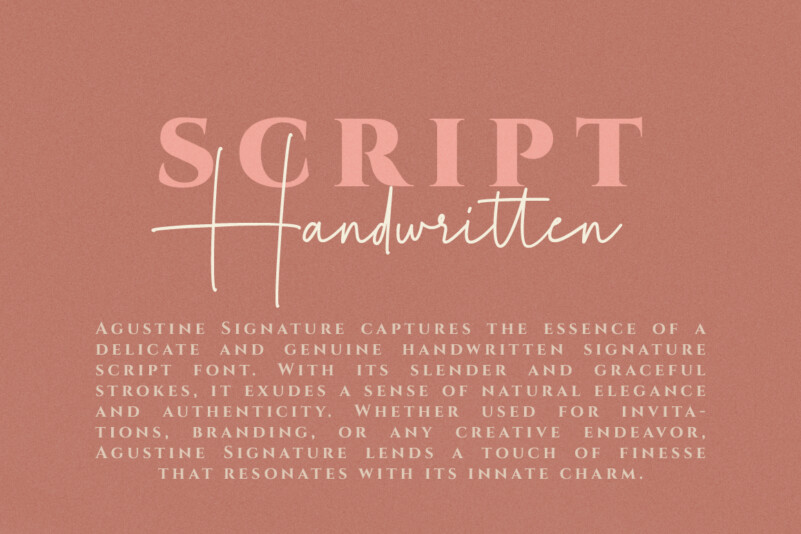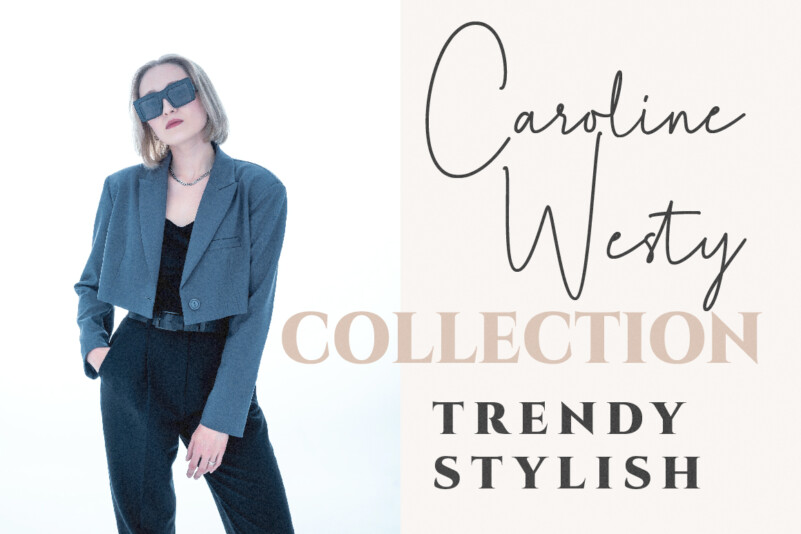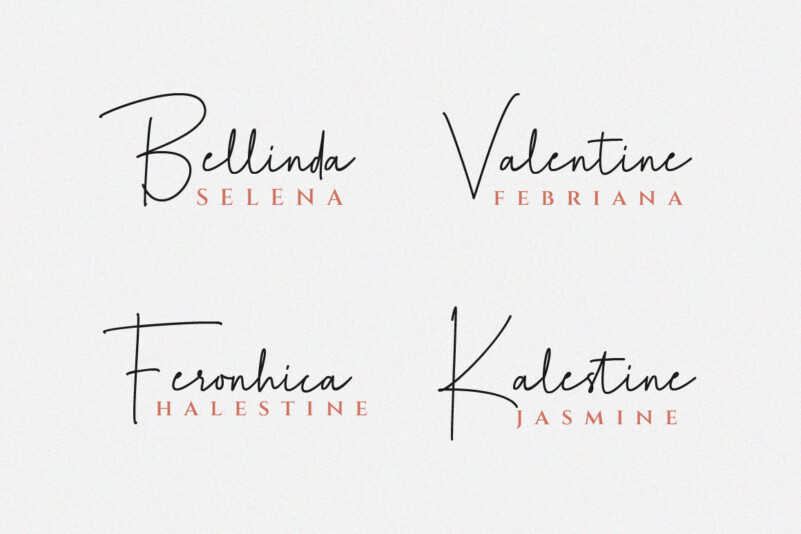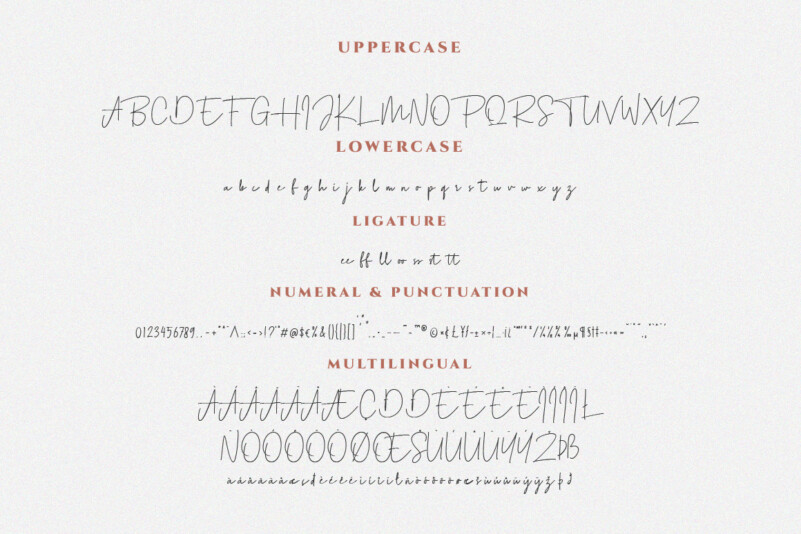
Agustine Signature Font
Agustine Signature Font captures the essence of a delicate and genuine handwritten signature script font. With its slender and graceful strokes, it exudes a sense of natural elegance and authenticity. Whether used for invitations, branding, or any creative endeavor.